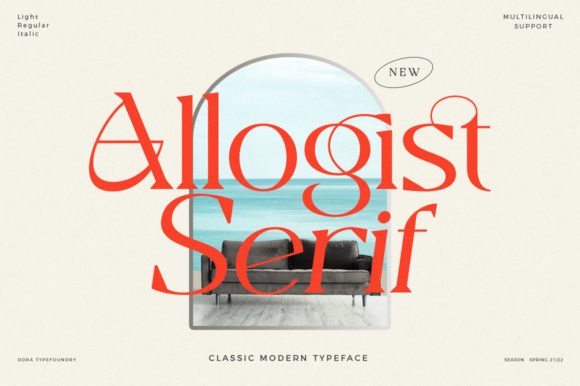
Introduction to Allogist Font
Allogist is a superb serif font.
Use it for any design projects that require a charming appearance This font is PUA encoded which means you can access all of the glyphs and swashes with ease.
Key Features of Allogist Font
Why Choose Allogist Font?